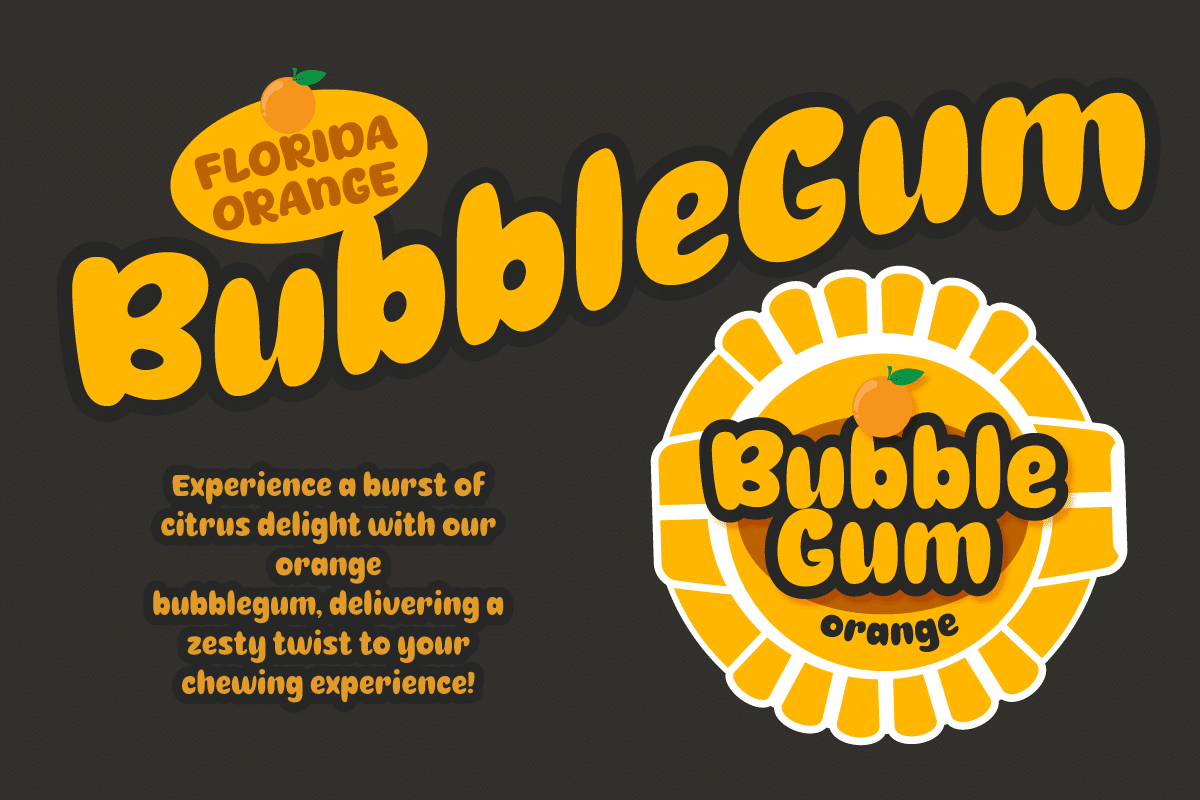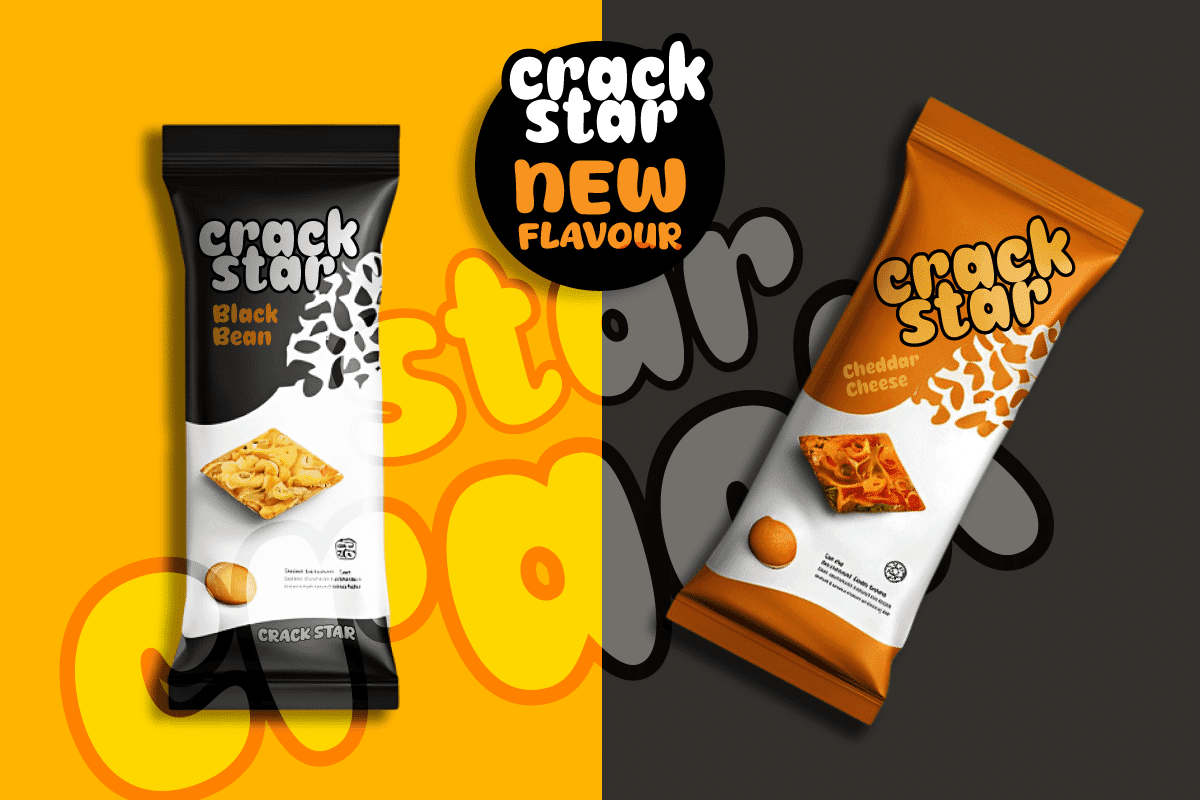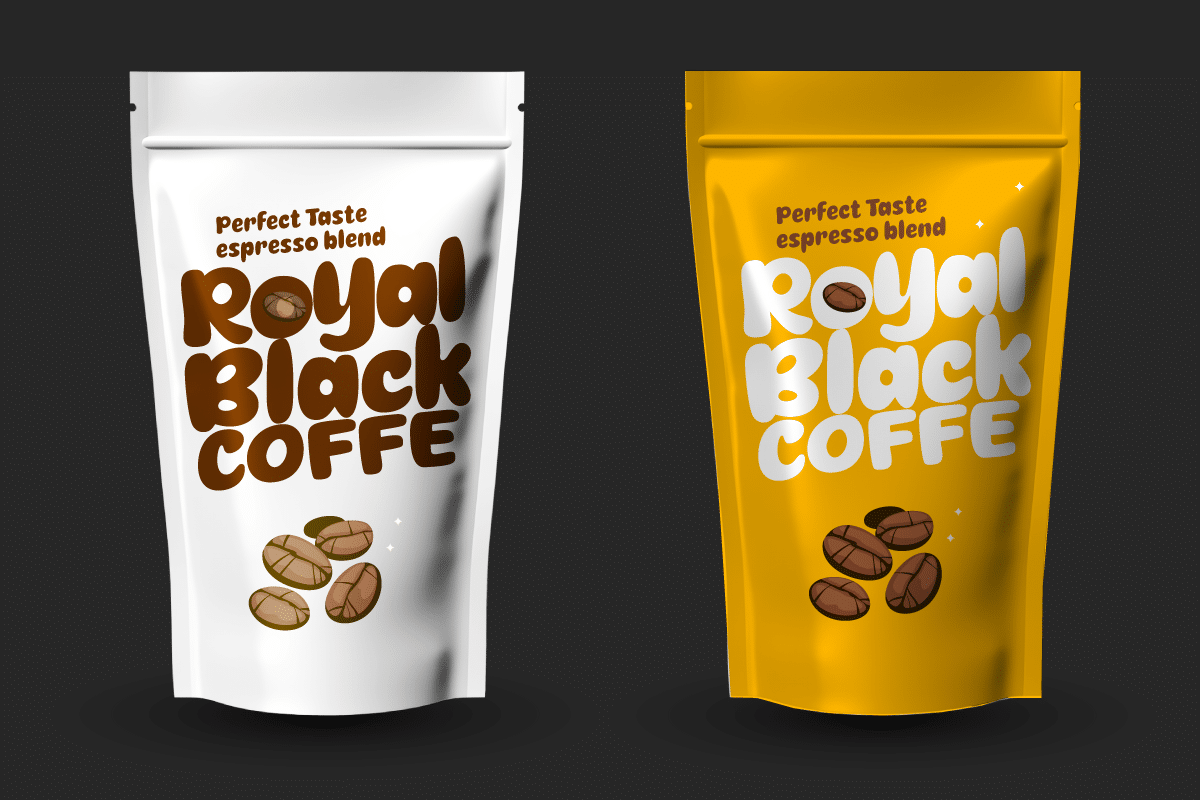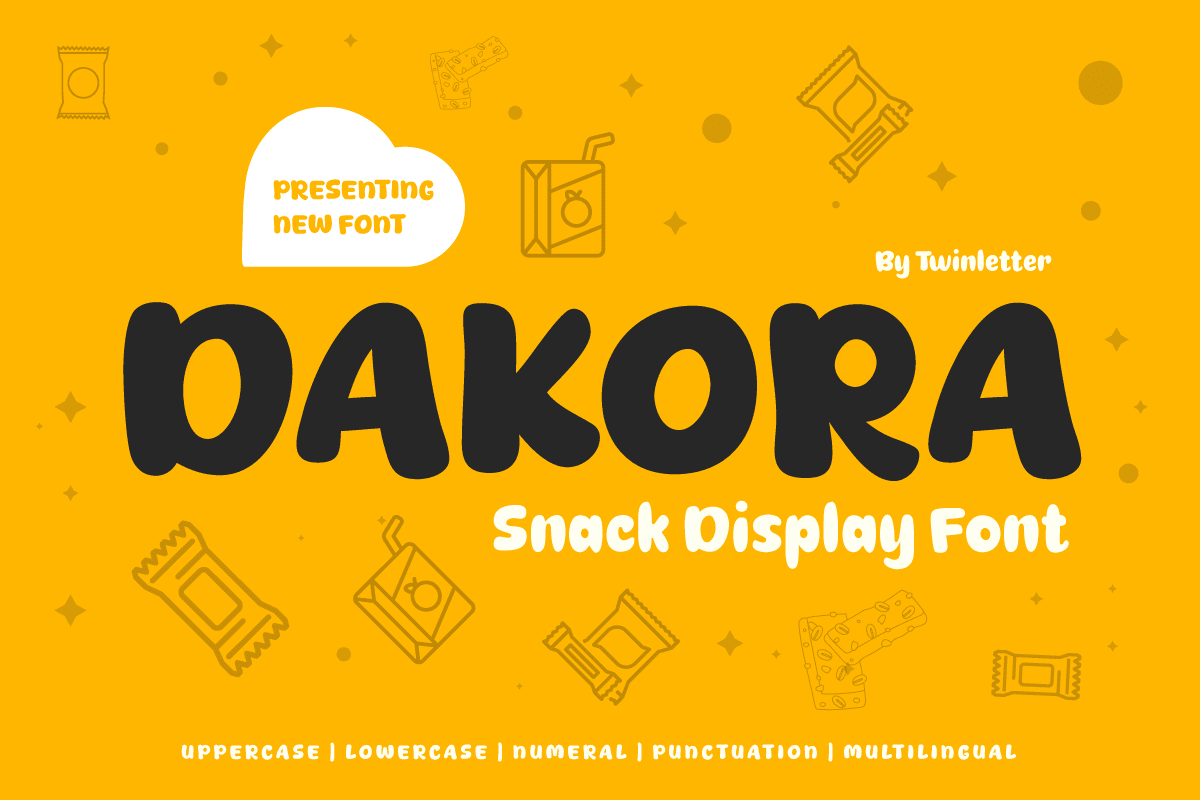
Dakora Snack Display Font
Dakora is a display font specifically designed to present branding or titles related to snack or snack products. This font has a strong, bold, and gripping style, perfect for creating the fun, relaxed, and cheerful feel often associated with the product category. With bold characters and rounded corners, Dakora provides an attractive and easy-to-read appearance on snack packaging, advertising, or promotions. This font is available in various styles such as uppercase, lowercase, numbers, and punctuation and even supports multilingual scripts, so it can be used for various design needs related to snacks or snacks.